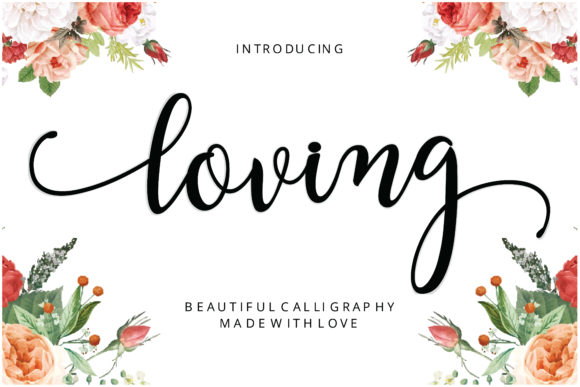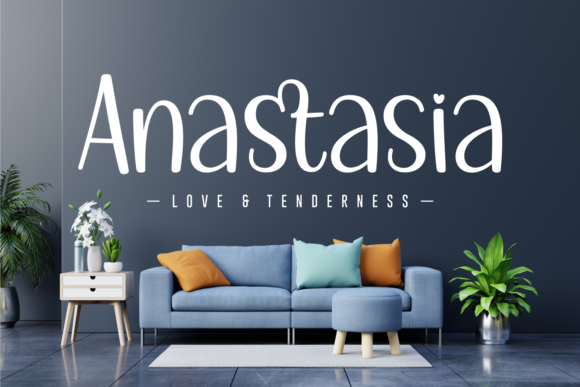
Finding the perfect font can transform a good design into an unforgettable one. Whether you’re working on wedding invitations, brand logos, social media graphics, or children’s party décor, the right typeface sets the entire mood. In this roundup, we’ve gathered the 16 most popular free fonts that designers are downloading right now – from flowing romantic scripts to bold playful display faces. Each one is handpicked for its versatility, charm, and creative potential. Read on, find your favorite, and grab it for free!
1. Lightning Script Font
Lightning Script is one of those rare handwritten typefaces that manages to feel both personal and polished at the same time. Its flowing strokes carry genuine energy – the kind that makes a brand name feel like it was signed by hand rather than typed from a keyboard. Whether you’re working on invitations, business cards, product labels, or signage, this font adds an unmistakable artisan quality that sets your work apart from the crowd.
The letterforms are confident and well-spaced, which keeps readability high even at smaller sizes. Lightning Script pairs beautifully with clean sans-serifs for modern contrast, or with textured backgrounds for a more handmade, organic feel. It’s a particularly smart choice for boutique branding, lifestyle blogs, and event materials where personality is the priority. If you’ve ever wanted your designs to carry a true handwritten spark, Lightning Script delivers exactly that.
My Recommendation: Lightning Script is a top pick when you need a handwritten font that punches above its weight. It’s energetic without being chaotic, and elegant without being stiff. Ideal for branding projects, printed invites, and any creative work that needs a personal signature touch.
2. Loving Font
Loving is a script font with a playful romantic personality that’s hard to resist. Its letterforms feel warm and inviting – the kind of typography that immediately puts a smile on the reader’s face. This is a font that works across a surprisingly wide range of projects: from Valentine’s Day cards and wedding materials to lifestyle brand packaging and social media content.
What makes Loving stand out is its versatility. The characters flow naturally and maintain excellent legibility, even when used at display sizes. It pairs effortlessly with serif body fonts for a romantic editorial feel, or alongside airy photography for product promotions. The gentle bounce of its baseline adds a lively, handcrafted energy that feels fresh and contemporary. If your project calls for warmth and charm, Loving is a font worth having in your toolkit.
My Recommendation: Loving works brilliantly for lifestyle brands, greeting card designers, and social media creatives who want to add a touch of romance to their work. It’s playful enough for casual projects but refined enough for premium packaging and invitations.
3. Anastasia Font
Anastasia is a joyful, well-rounded handwritten font that brings a gentle, expressive energy to any design it touches. Its characters feel natural and spontaneous – like a thoughtful note written with care – while maintaining the kind of visual consistency that makes it practical across real-world design work. From romantic greeting cards to baby shower invitations and personal branding, Anastasia adds a heartfelt quality that resonates.
The font’s smooth curves and balanced proportions make it easy to pair with other typefaces, especially clean sans-serifs or light serif text fonts. It reads well at both large display sizes and medium headline scale, giving designers flexibility throughout a layout. Note that this font is not compatible with Canva, so it’s best used in Adobe Illustrator, Photoshop, or similar software where it can truly shine.
My Recommendation: Anastasia is the go-to choice when your project needs a handwritten font that feels both joyful and romantic without being overly formal. Perfect for wedding stationery designers, gift product creators, and anyone crafting personalized content with a warm, human touch.
4. Mylove Font
Mylove is a flowing, delicate handwritten font that embodies charm and elegance in every single character. Designed with a graceful, feminine sensibility, it suits projects that call for lovely, romantic typography – think wedding invitations, love-themed greeting cards, Valentine’s Day materials, and soft lifestyle branding. The script moves naturally across the baseline with a lightness that feels both effortless and refined.
One of Mylove’s most practical strengths is that it is PUA encoded, which means you can access all glyphs and swashes directly in character map tools without needing specialist software knowledge. This makes it especially accessible for designers working across different platforms and workflows. The swashes add beautiful decorative possibilities, allowing you to customize and elevate your layouts with elegant typographic flourishes.